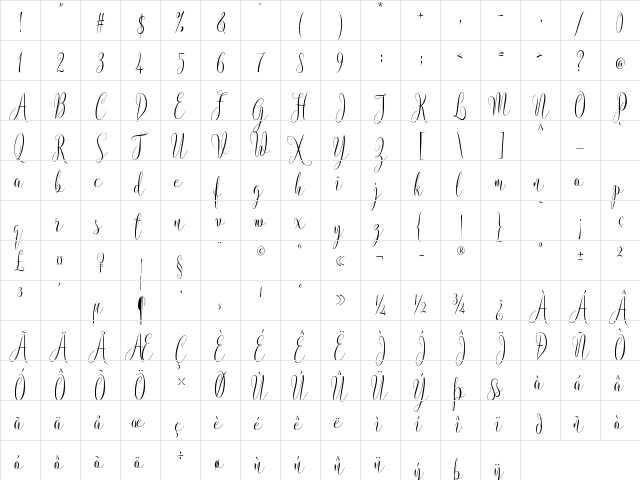
Instine Script Regular
Design Context for Instine Script Typeface
Instine Script flows with the natural rhythm of handwritten lettering, making it ideal for designs that call for warmth and personal expression.
Font Pairing: Combine Instine Script with a simple geometric sans for maximum contrast — the tension between flowing curves and clean structure is a classic typographic pairing.
Pro Tip: Pair Instine Script with a clean sans-serif for supporting text. The contrast between fluid script and geometric structure creates an elegant typographic hierarchy.